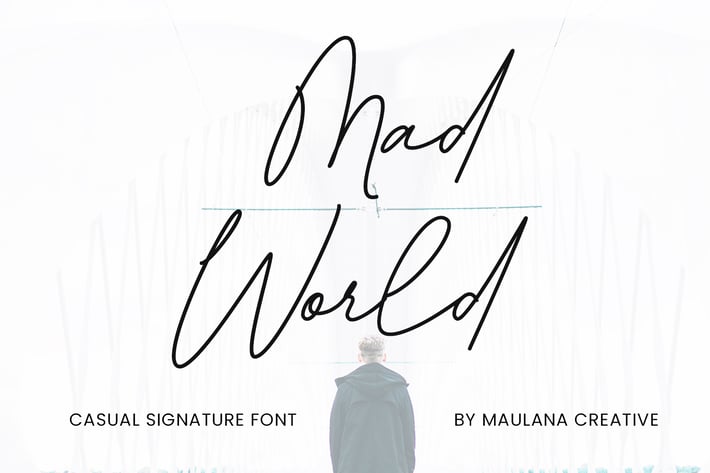
Mad World Casual Signature Font
Give your designs an authentic handcrafted feel. “Mad World Casual Signature Font” is perfectly suited to stationery, logos and much more.